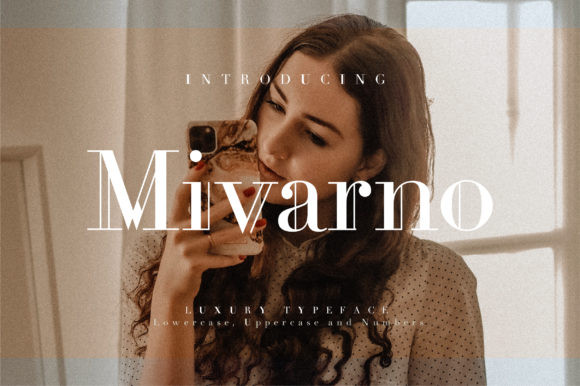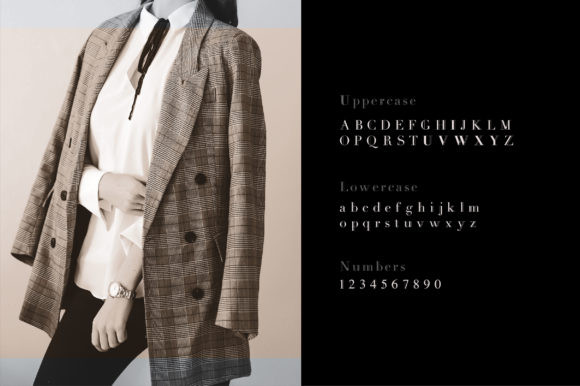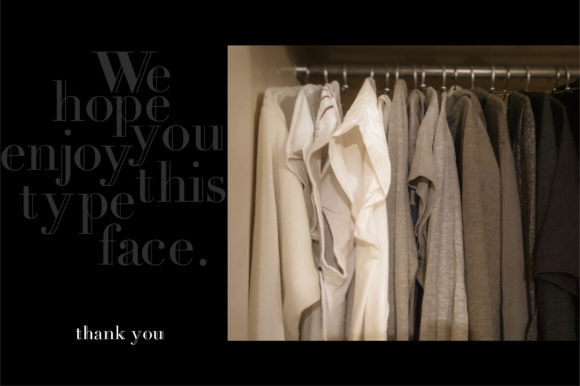
Mivarno Font
Mivarno is an elegant serif font. It features a modern and classic styles that makes it perfect for branding, fashion magazines, social media posts and everything that requires a sophisticated look!